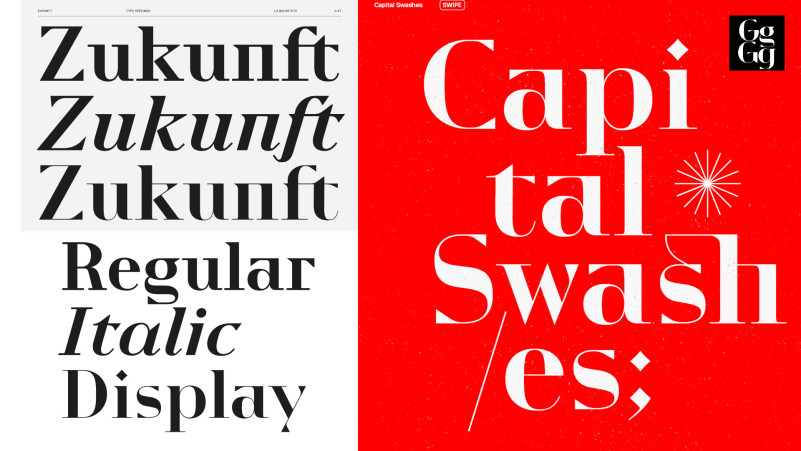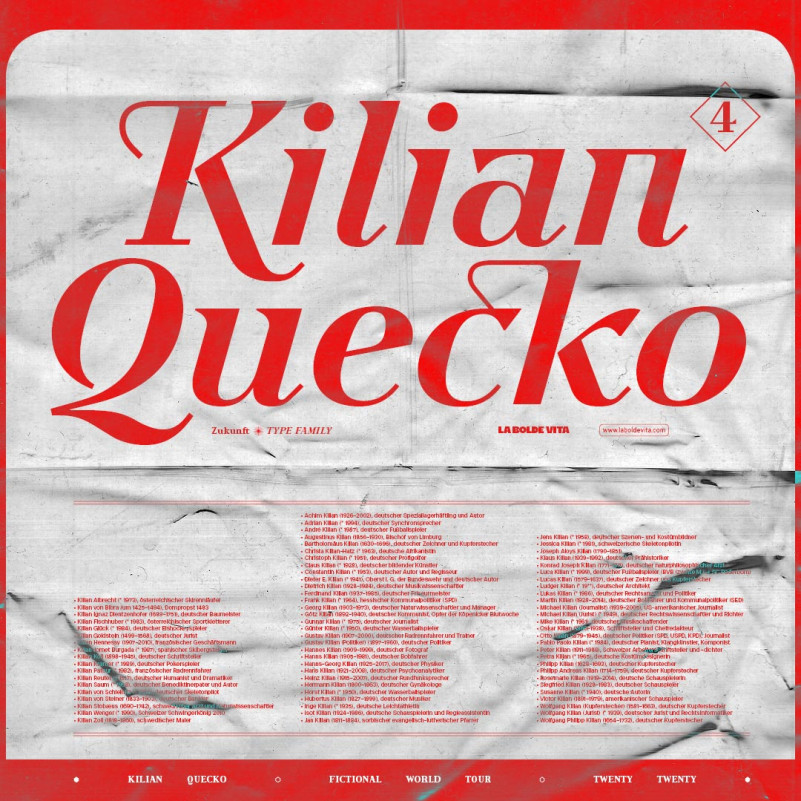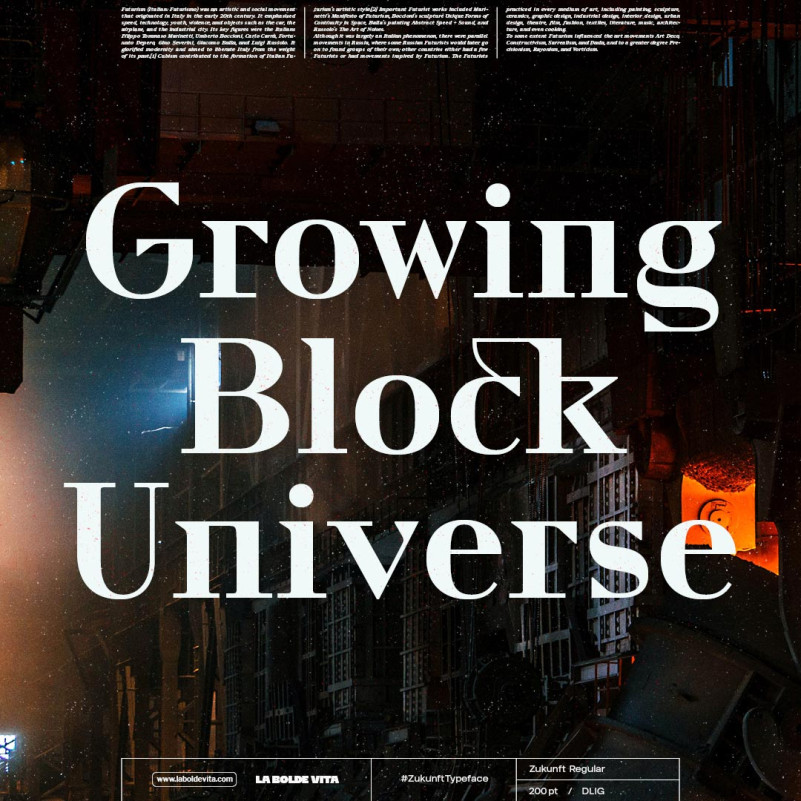
Zukunft Font
The Zukunft type family is an homage to classic didone typefaces. Though using traditional proportions, the design explores a more futuristic approach; the letters overall seem more digitally created, featuring triangular serifs, right angles and strict horizontal lines.
Besides the Regular style, suitable for body copy, the Italic brings back some flow and warmth, making it a good decorative companion. And then there’s the display cut; with a high contrast and sharp serifs this is the perfect choice for headlines and posters.
Compared to the rest of our designs, Zukunft is a rather conventional but versatile typeface you can probably use for a wider range of projects. Wether short paragraphs, big titles or branding work, the diverse styles will fit and ensure a unique look. Don’t forget to use the numerous alternates for letters and figures, as well as special symbols and italic capital swashes to make use of the full potential of Zukunft!